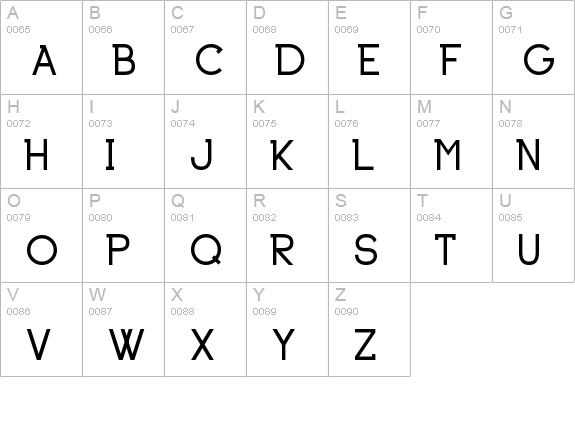
Introducing Basically Serif_FREE-version font, a stunning typeface that effortlessly combines the timeless elegance of serif fonts with a modern twist. This font is the perfect choice for those seeking a sophisticated yet versatile design, whether it be for professional documents, stylish invitations, or captivating web content. With its clean lines and carefully crafted letterforms, Basically Serif_FREE-version font exudes confidence and refinement. Each character is meticulously designed to ensure optimal legibility and readability, making it a go-to choice for any project where clear communication is key. What sets Basically Serif_FREE-version font apart is its accessibility. As the name suggests, this font is freely available for download, allowing designers and enthusiasts alike to embrace its beauty without any barriers. You can find this font at FontsMarket.com, a trusted source for high-quality and diverse typography options. Whether you're a seasoned designer looking to add a touch of elegance to your creations or an aspiring creative looking to experiment with a sophisticated font, Basically Serif_FREE-version font is the ideal choice. Its versatility and timeless appeal make it a valuable addition to any font library, and with its availability as a free download, there's no reason not to give it a try. Experience the power of Basically Serif_FREE-version font today and discover the perfect balance between classic and contemporary design. Download it now at FontsMarket.com and unlock a world of possibilities for your next project.